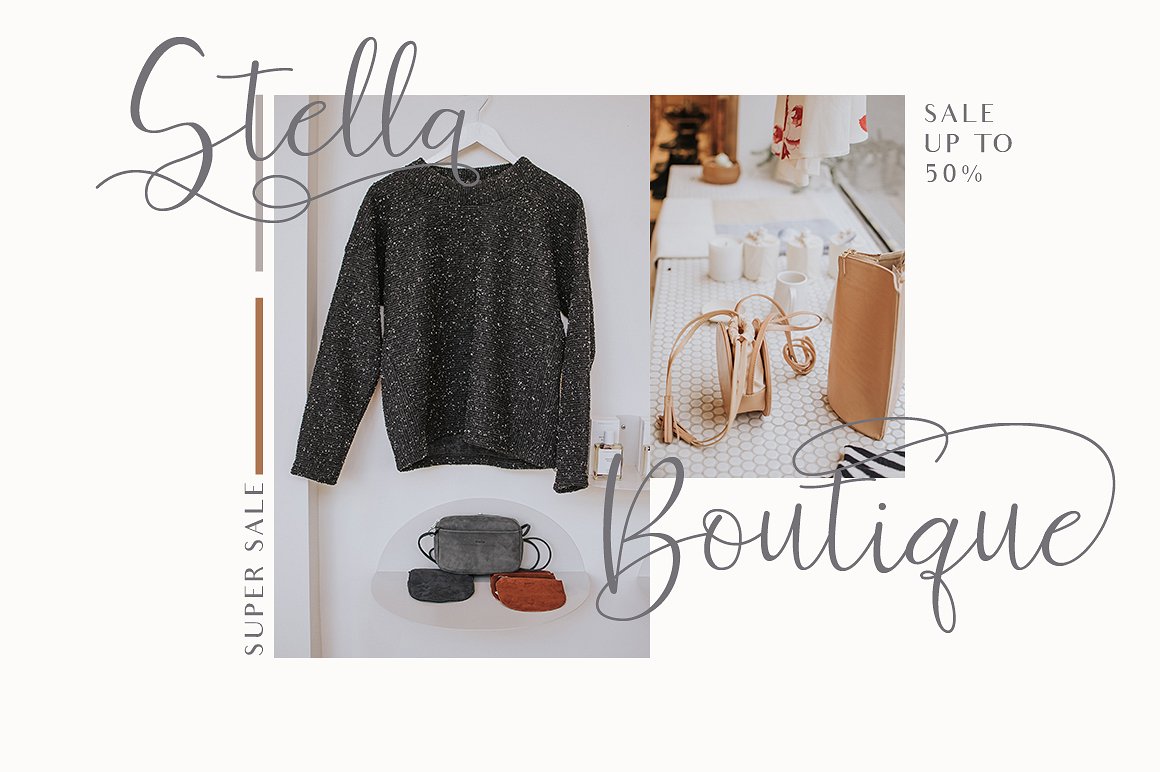
Ferinitta Calligraphy Font
A chic script font. This font has a really nice flow so you use it in a large text if you want to give them a touch of personality. Introducing Ferinitta Script Font. It is design and shared by Ef_Studio. Ferinitta Calligraphy Font is a modern script with a handwriting style. beautiful fonts & elegance for logo projects, branding, invitations, labels, product design, photography or anything. this is beautiful writing made from the heart for you.